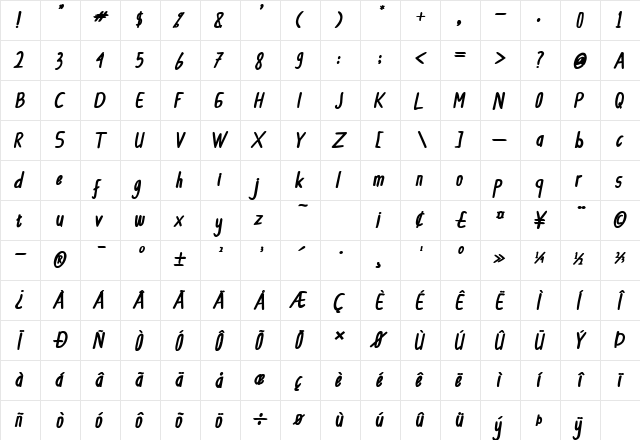
CollBesT Bold Italic
Design Context for CollBesT Typeface
CollBesT is a composed and adaptable typeface that performs quietly and consistently across a wide range of design contexts. Its italic angle brings a sense of urgency and motion to the letterforms. The heavy weight commands attention and anchors typographic hierarchies.
Pro Tip: Try CollBesT for annotation and caption copy alongside an upright companion — the contrast in angle creates a dynamic but ordered typographic system.